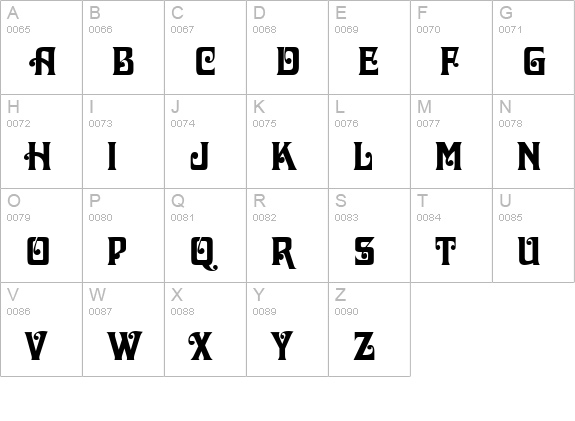
Dascha Regular is the standard, neutral variant in the Dascha typeface family \xE2\x80\x94 well suited to general body text, paragraphs, and standard typographic work.
Dascha Regular font is a versatile and elegant typeface that strikes the perfect balance between modernity and classic appeal. With its clean lines and smooth curves, this font exudes a sense of sophistication and style that is suitable for a wide range of design projects. Whether you are creating a sleek logo, a professional website, or eye-catching marketing materials, Dascha Regular font is sure to make a lasting impression. What's even better is that Dascha Regular font is available for free download at FontsMarket.com. This means that you can easily access this high-quality font without any cost, allowing you to elevate your design projects without breaking the bank. Don't miss out on the opportunity to enhance your creative work with the timeless beauty of Dascha Regular font - download it for free today!